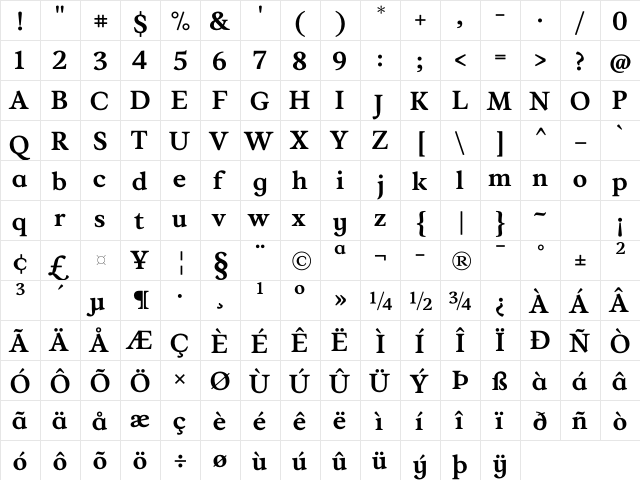
MuseeAltBold Regular
| Foundry | Dino dos Santos _DSType |
Design Context for MuseeAltBold Typeface
MuseeAltBold takes a measured approach to typography — its balanced proportions and neutral character make it a reliable workhorse for both digital and print work. Its bold stroke weight gives it real presence on the page.